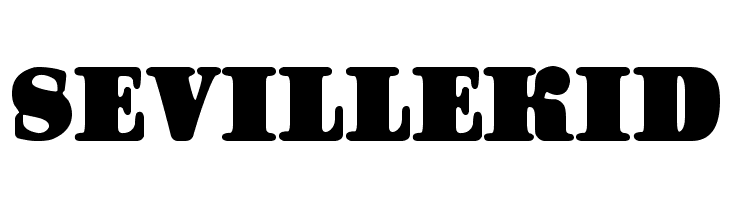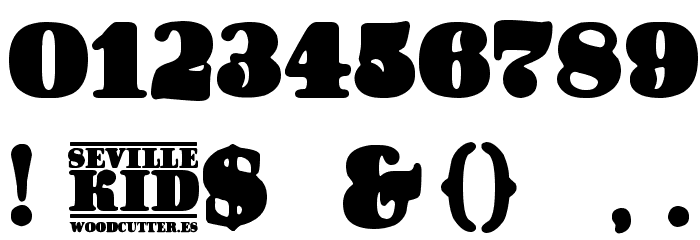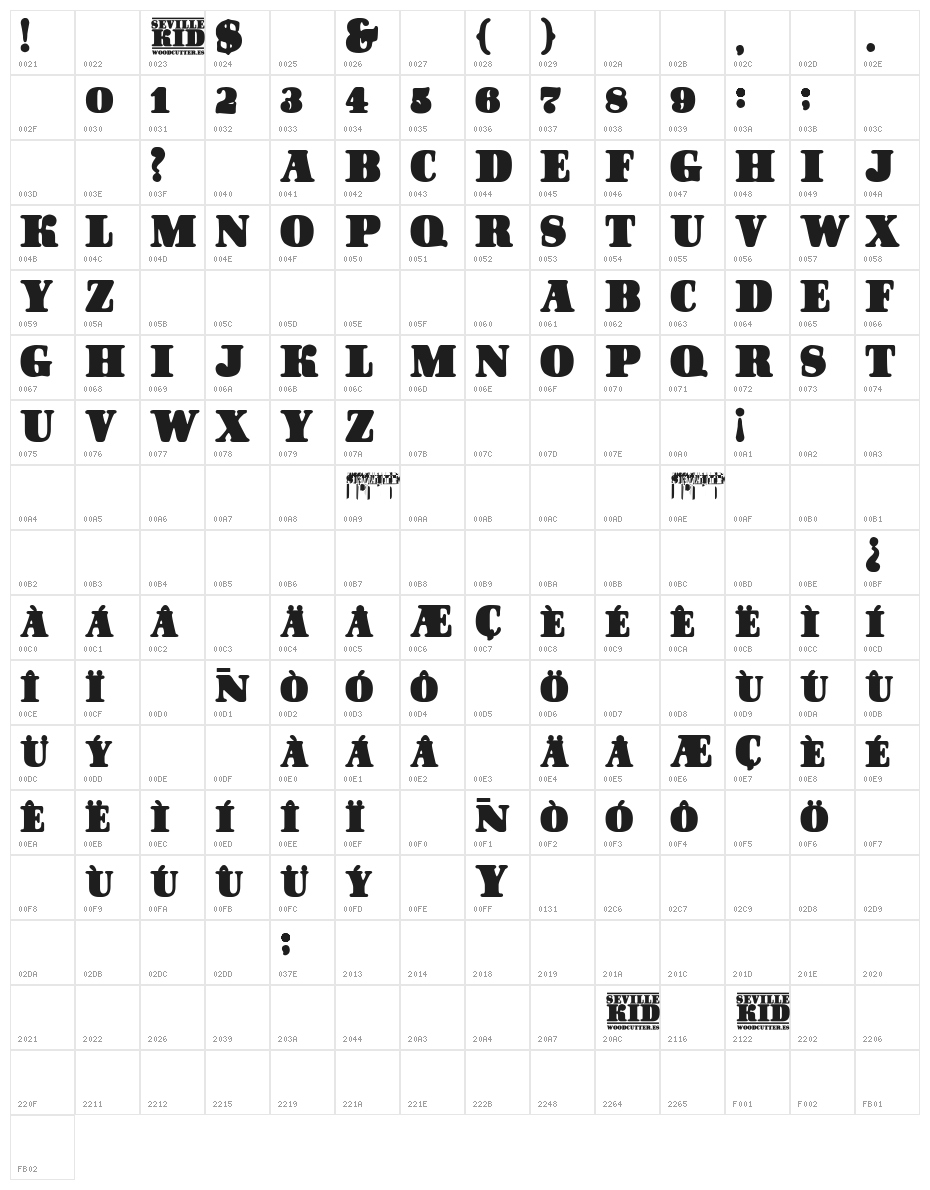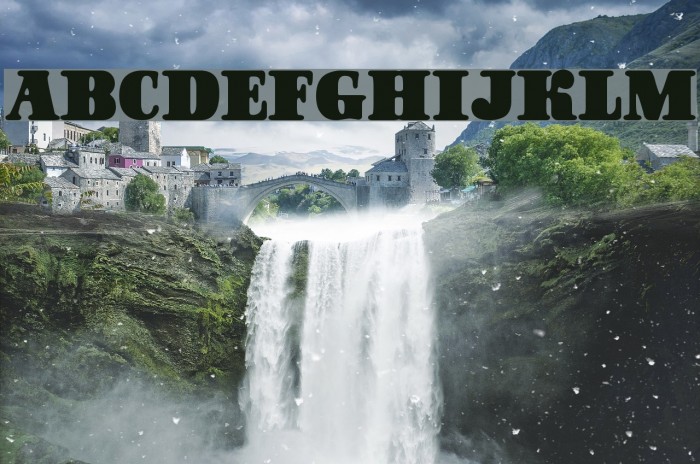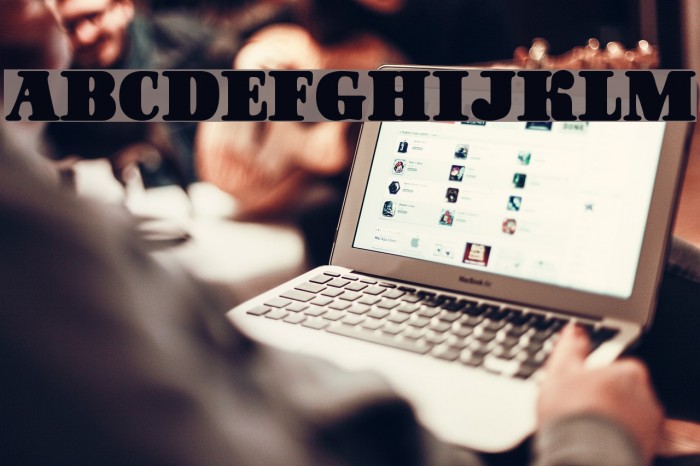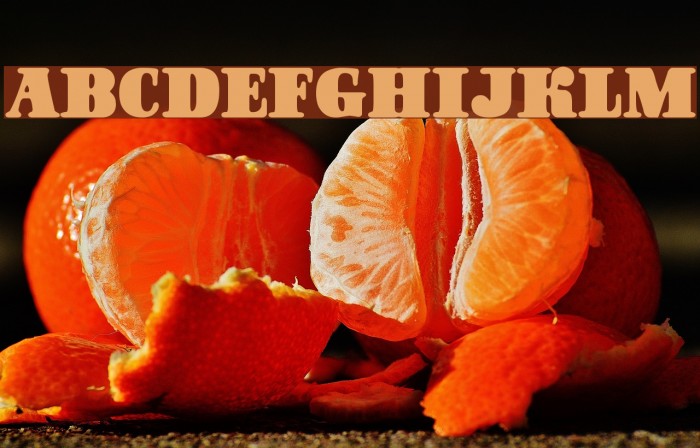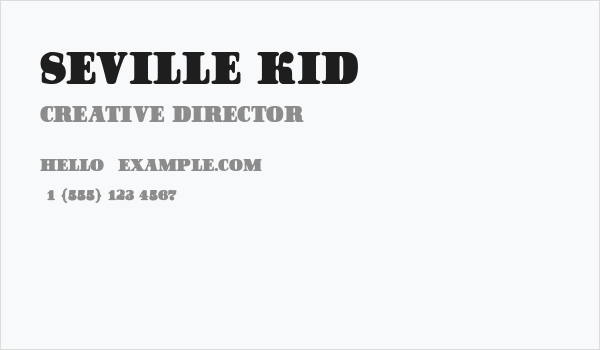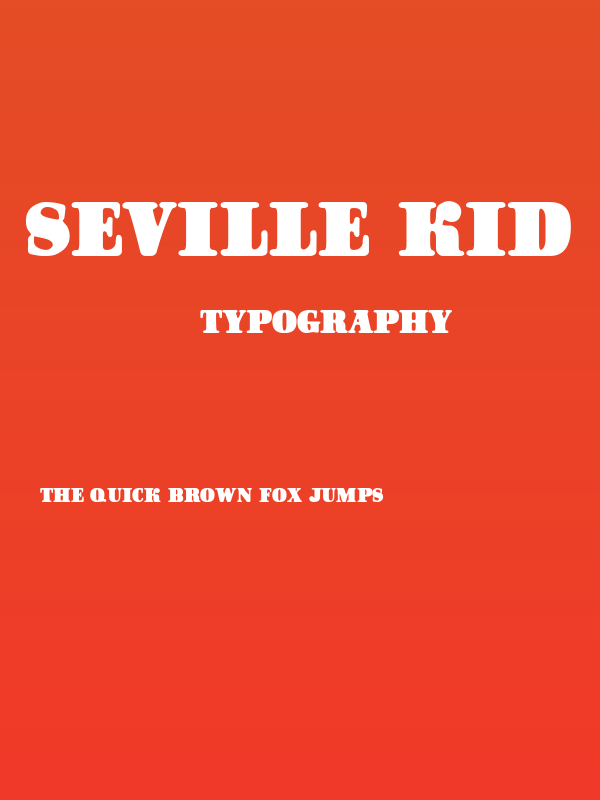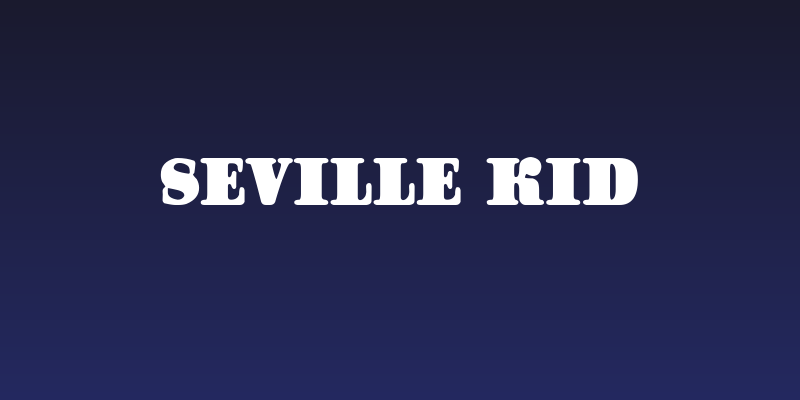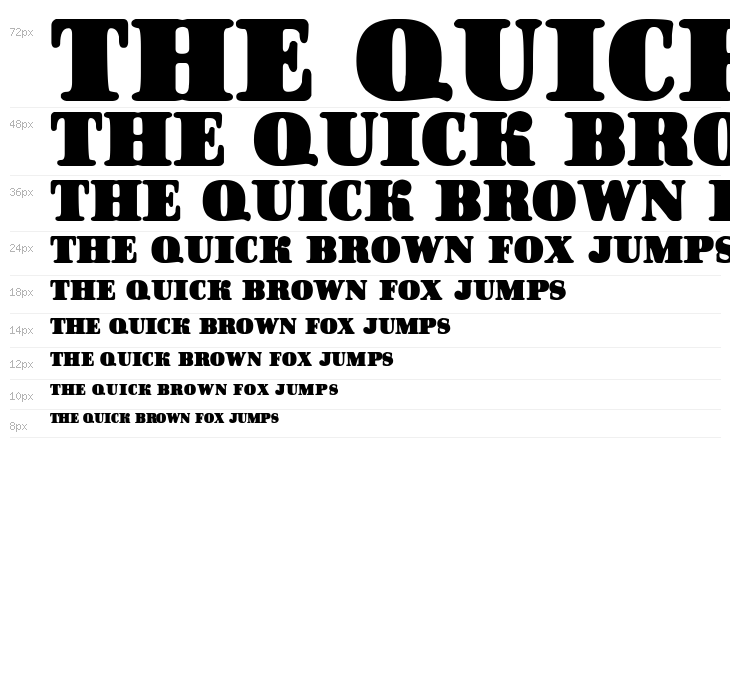
Seville Kid Font
Seville Kid Description
This font features a bold and robust design with thick, block-like serifs that give it a strong and commanding presence. The characters are uniformly wide, creating a sense of stability and strength. The uppercase and lowercase letters maintain a consistent style, with rounded edges that soften the otherwise heavy appearance. The numerals are equally bold, ensuring they stand out clearly. Special characters are designed to match the overall aesthetic, making them suitable for attention-grabbing text. This font's distinct style is reminiscent of vintage Western or circus themes, making it ideal for projects that require a touch of nostalgia or boldness.